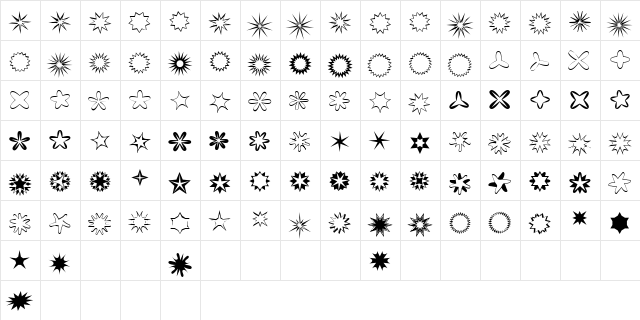
StellaStern Bright
Design Context for StellaStern Typeface
StellaStern is a composed and adaptable typeface that performs quietly and consistently across a wide range of design contexts.